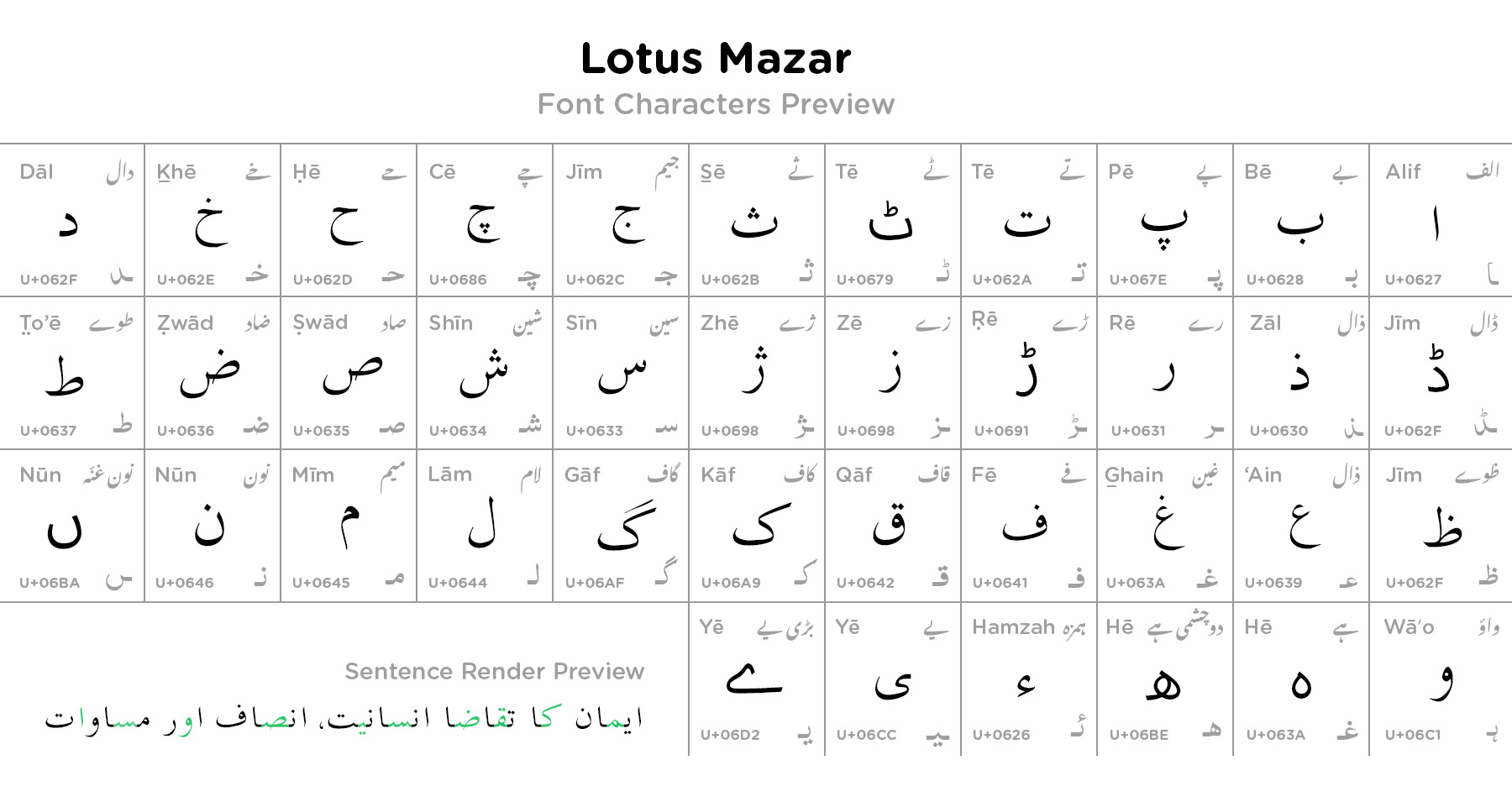
Lotus Mazar is a stylish Arabic font. It has classic and calligraphic feel. It is widely used in artistic and formal writing, giving a refined and traditional appearance. The font follows a classic Naskh-style script. The letters have a harmonious flow, making the text look sophisticated. There is a mix of thin and thick strokes in it. The font has smooth curves and a handwritten touch. Some letters, especially in connected words, have slightly elongated tails. Some strokes are thin and delicate. Others are bolder, giving a balanced feel. It is mostly used for poetry, novels, certificates, diplomas, formal invitations, branding, logos, Islamic calligraphy, and historical texts due to its classic look. It is a perfect blend of calligraphy and readability. This makes it an excellent choice for both formal and artistic purposes.